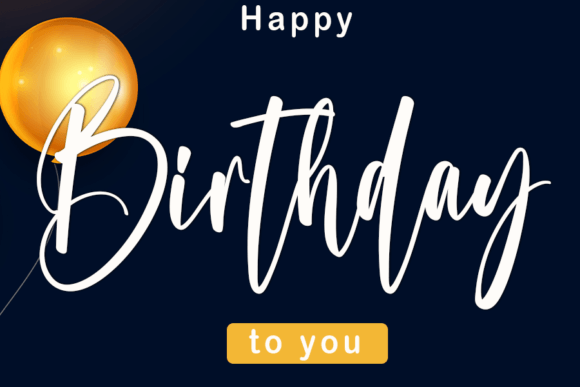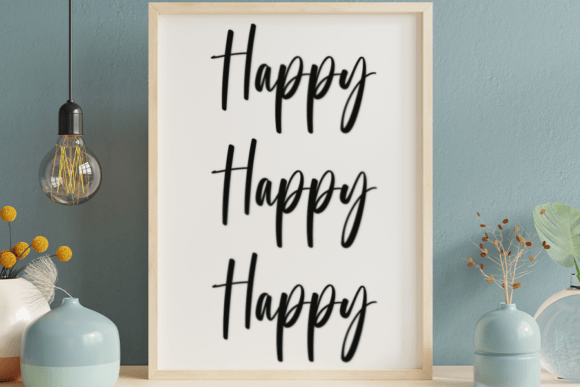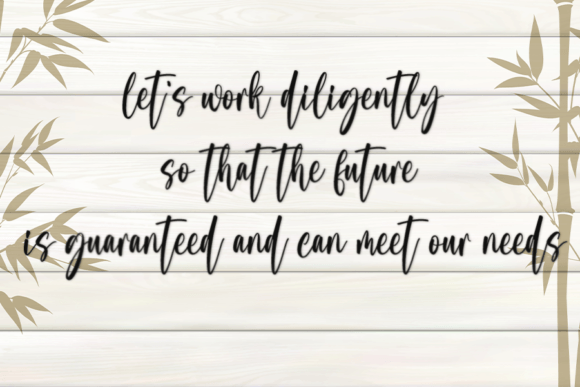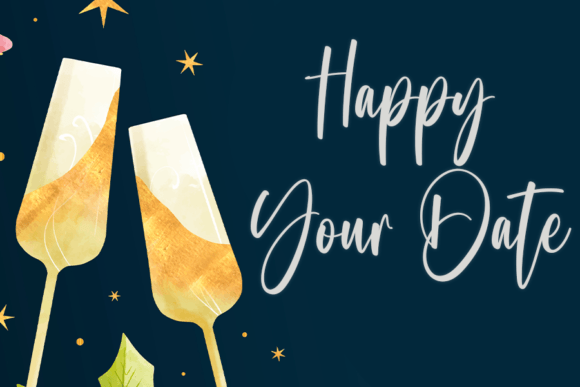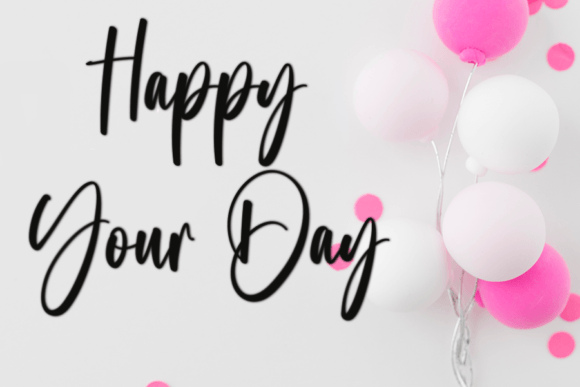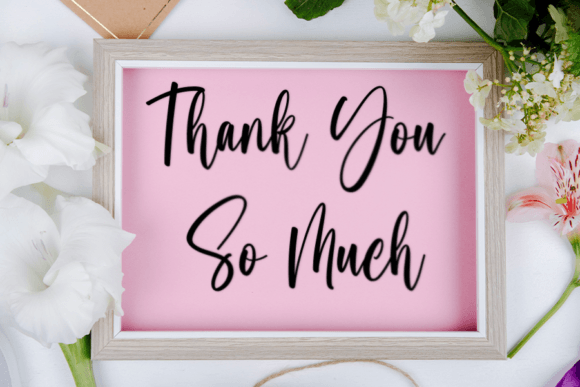
Birthday Font
About Birthday Font Download
The Birthday Font Download is a gorgeous handwritten script created to make your designs stand out. With elegant curves and smooth lines, this font adds warmth and charm to any creative project. Whether you are working on invitations, posters, or digital design, Birthday gives your work a timeless and romantic touch.
A Gorgeous Script with Elegant Curves
The Birthday script font combines stylish handwritten strokes with graceful details. As a result, it feels both modern and classic. Furthermore, it adapts seamlessly to many design needs, from wedding stationery to large magazine covers.
Personal designs are more memorable with handwritten fonts. The Birthday Font is perfect for wedding invitations, birthday cards, thank you notes, and holiday greetings. Because of its curvy strokes, every message feels polished and heartfelt. In addition, it makes stationery look unique and refined.
Branding and Logo Design with Birthday Font
Typography is central to brand identity. The Birthday handwritten font works beautifully for boutique logos, product packaging, and promotional materials. Its romantic handwritten style makes businesses look professional yet approachable. Therefore, it is an excellent option for fashion, lifestyle, or creative brands.
Posters, Magazines, and Editorial Layouts
The Birthday Font Download is also perfect for posters, banners, book covers, and magazines. It maintains its clarity across different sizes while keeping its elegant flow. Consequently, it is a dependable font for both small and large-scale projects.
In today’s creative online world, fonts must be stylish yet easy to read. The Birthday typeface integrates well into Instagram posts, Pinterest graphics, YouTube thumbnails, and blogs. Because of its graceful handwritten rhythm, it ensures digital projects look modern and eye-catching.
Why Designers Choose Birthday Typeface
Designers need fonts that bring both usability and beauty. Many handwritten fonts can look artistic but lose clarity. However, the Birthday handwritten script balances elegance and readability. This makes it a reliable font for professionals and hobbyists alike. Moreover, its timeless look ensures it will remain relevant for years.
Add Romantic Elegance to Your Projects Today
If you want a handwritten script that feels gorgeous, curvy, and versatile, the Birthday Font Download is the perfect choice. From invitations and cards to logos, posters, and social media, it enriches every project with handwritten charm. Finally, download Birthday today and let your designs shine with style and grace.